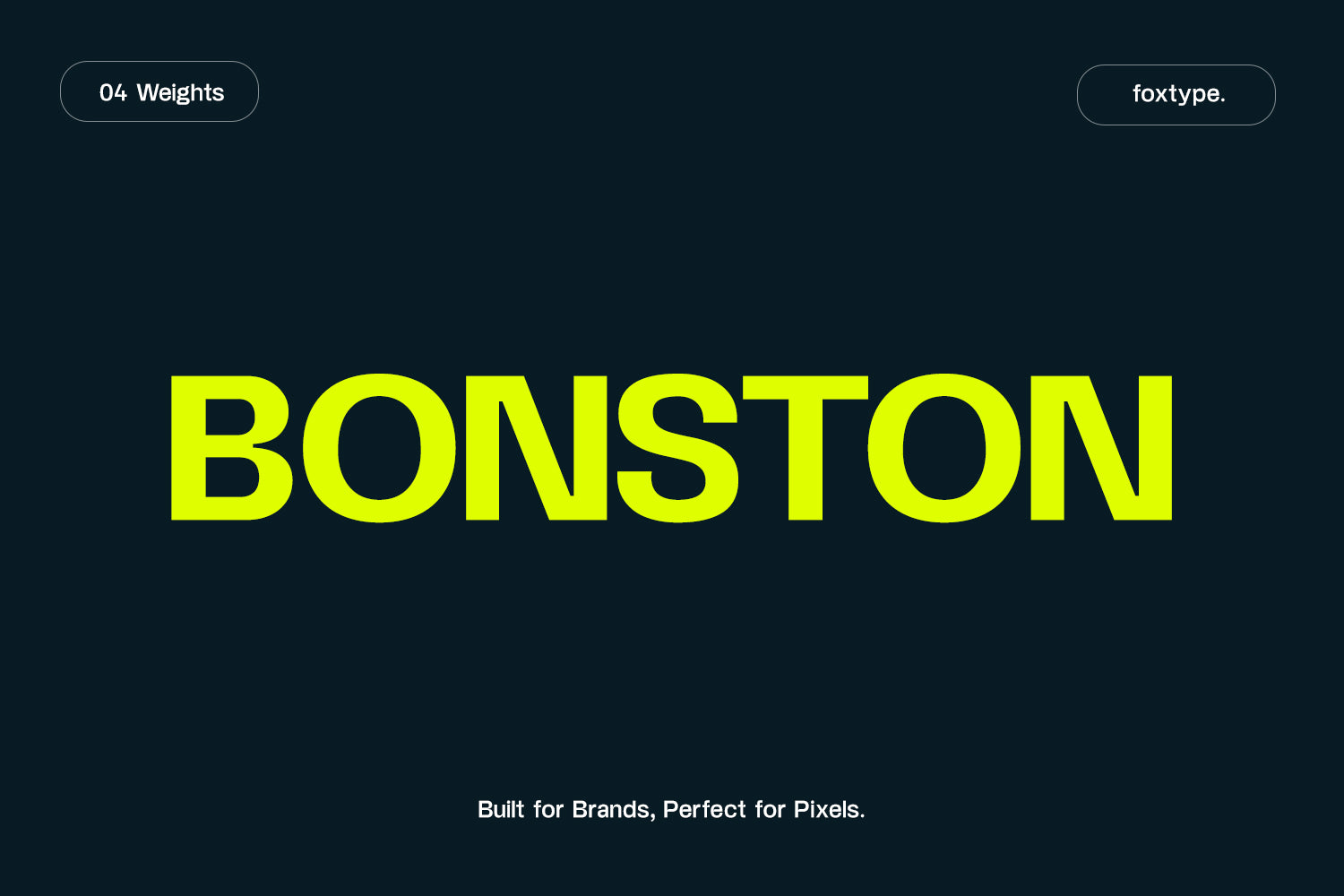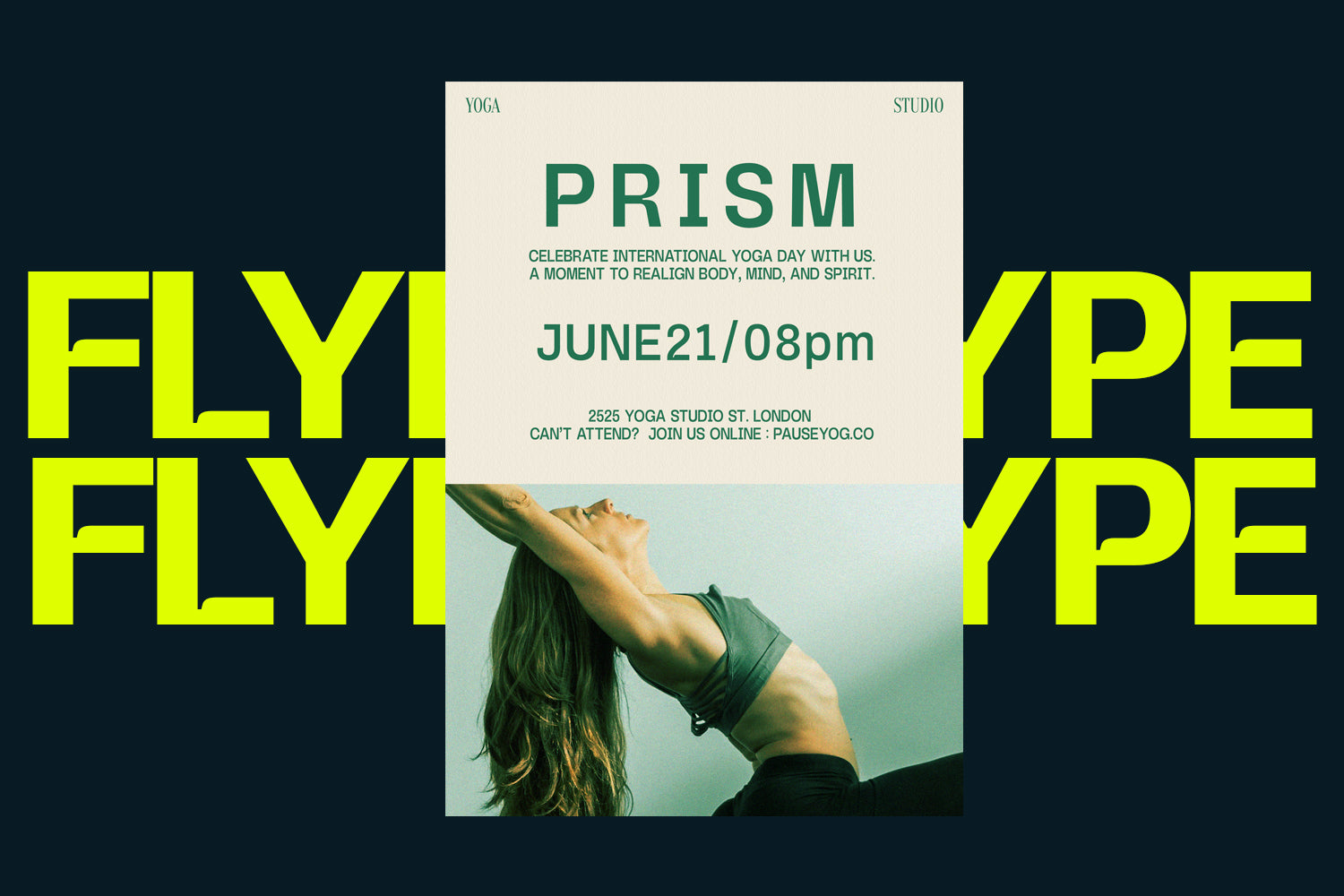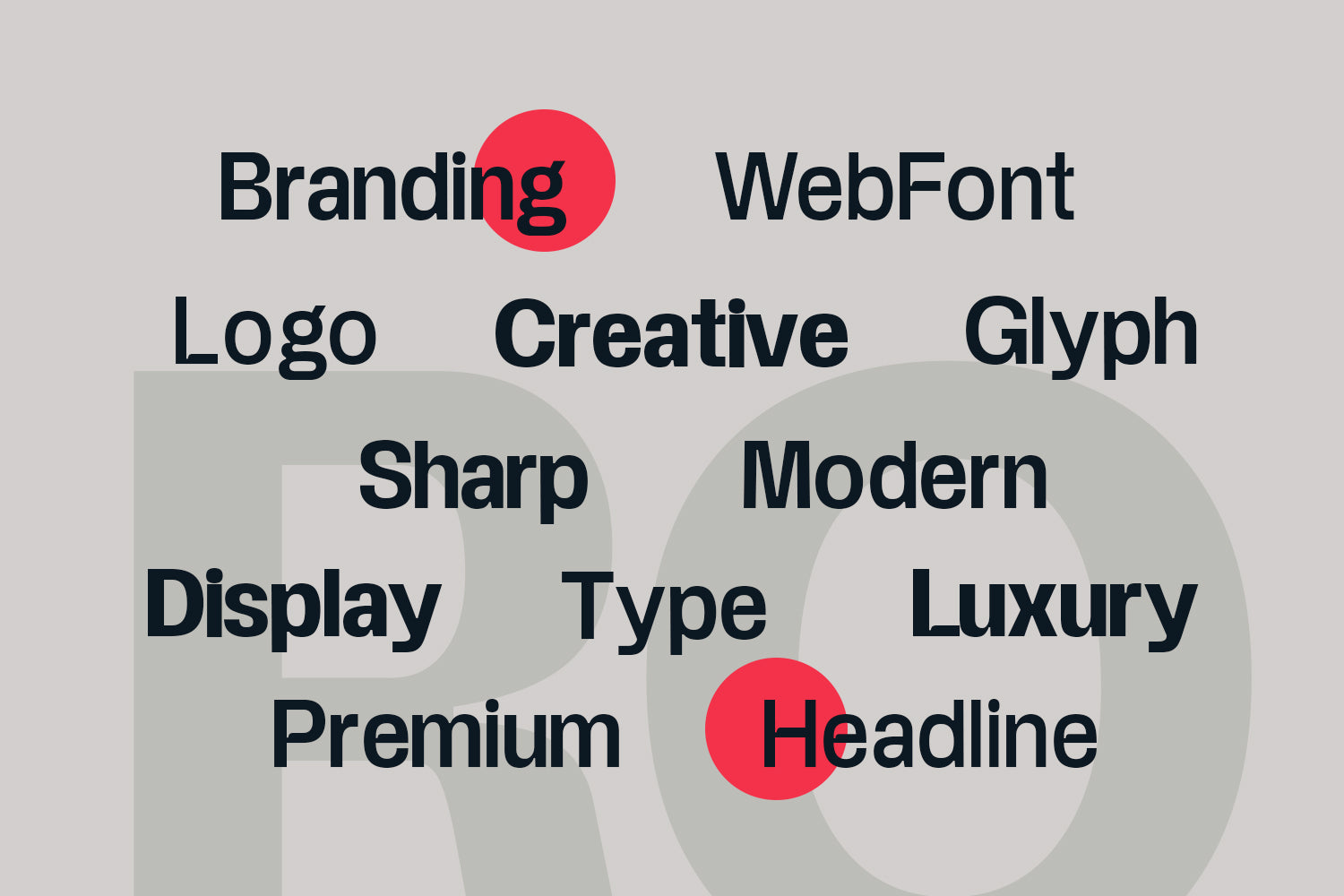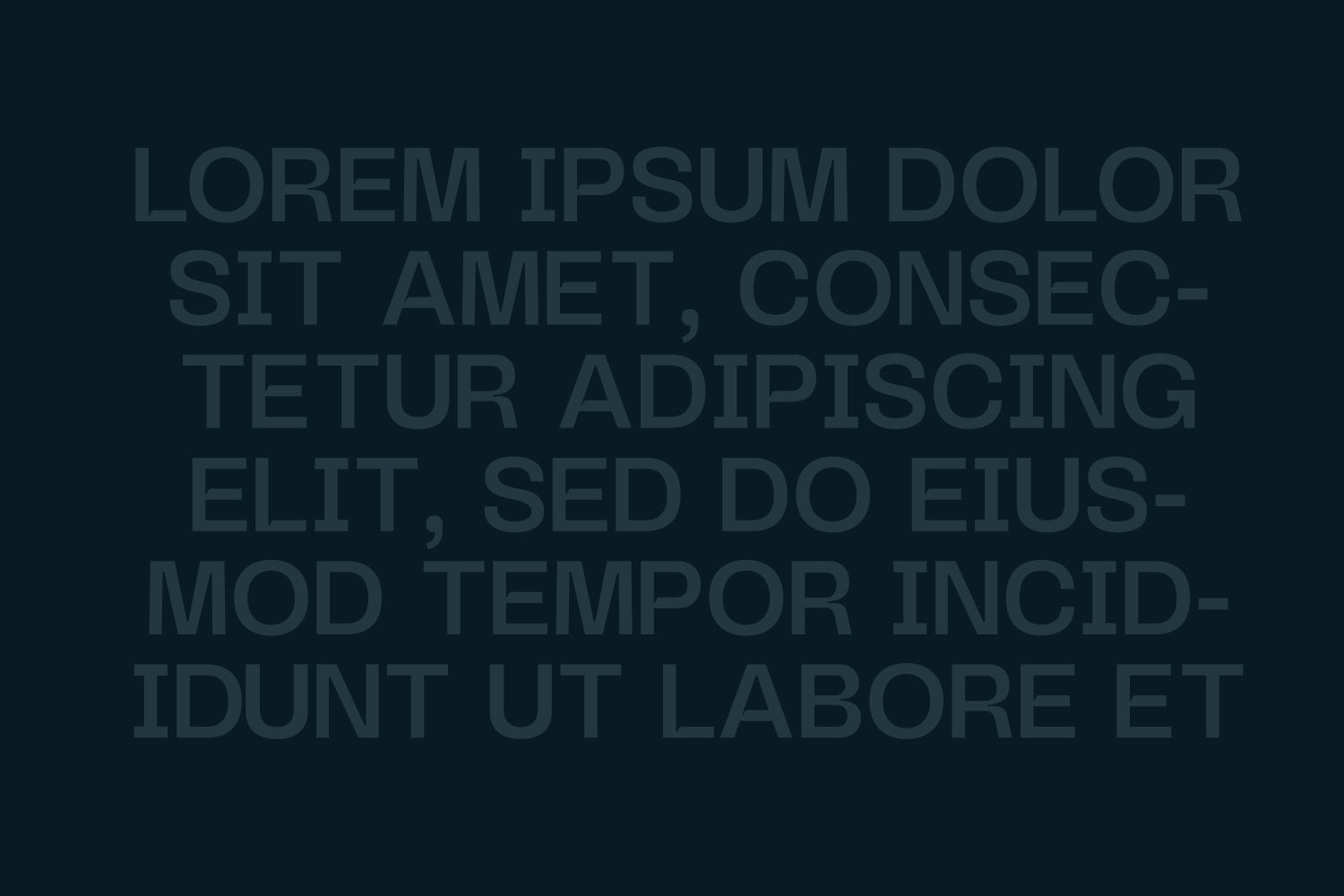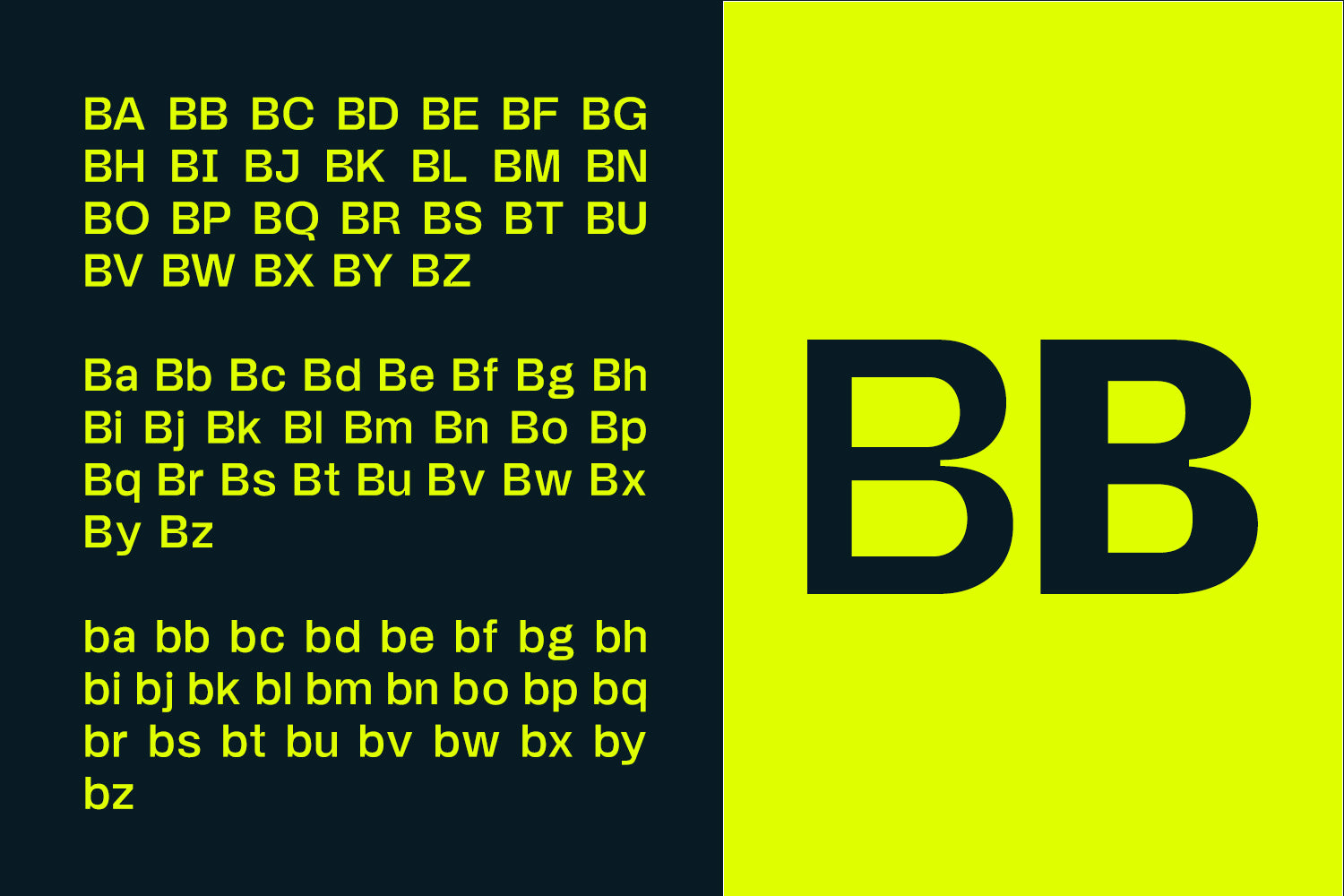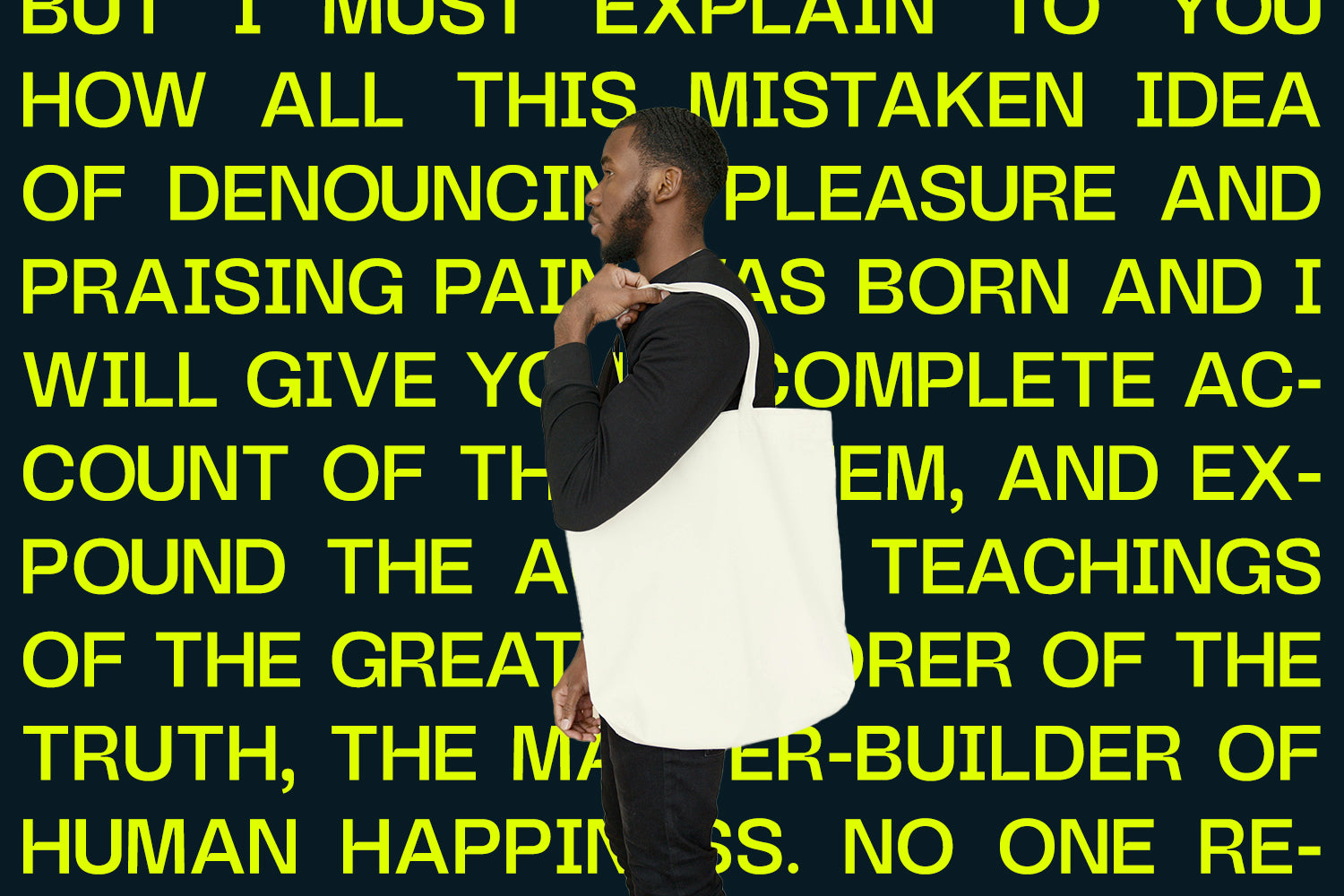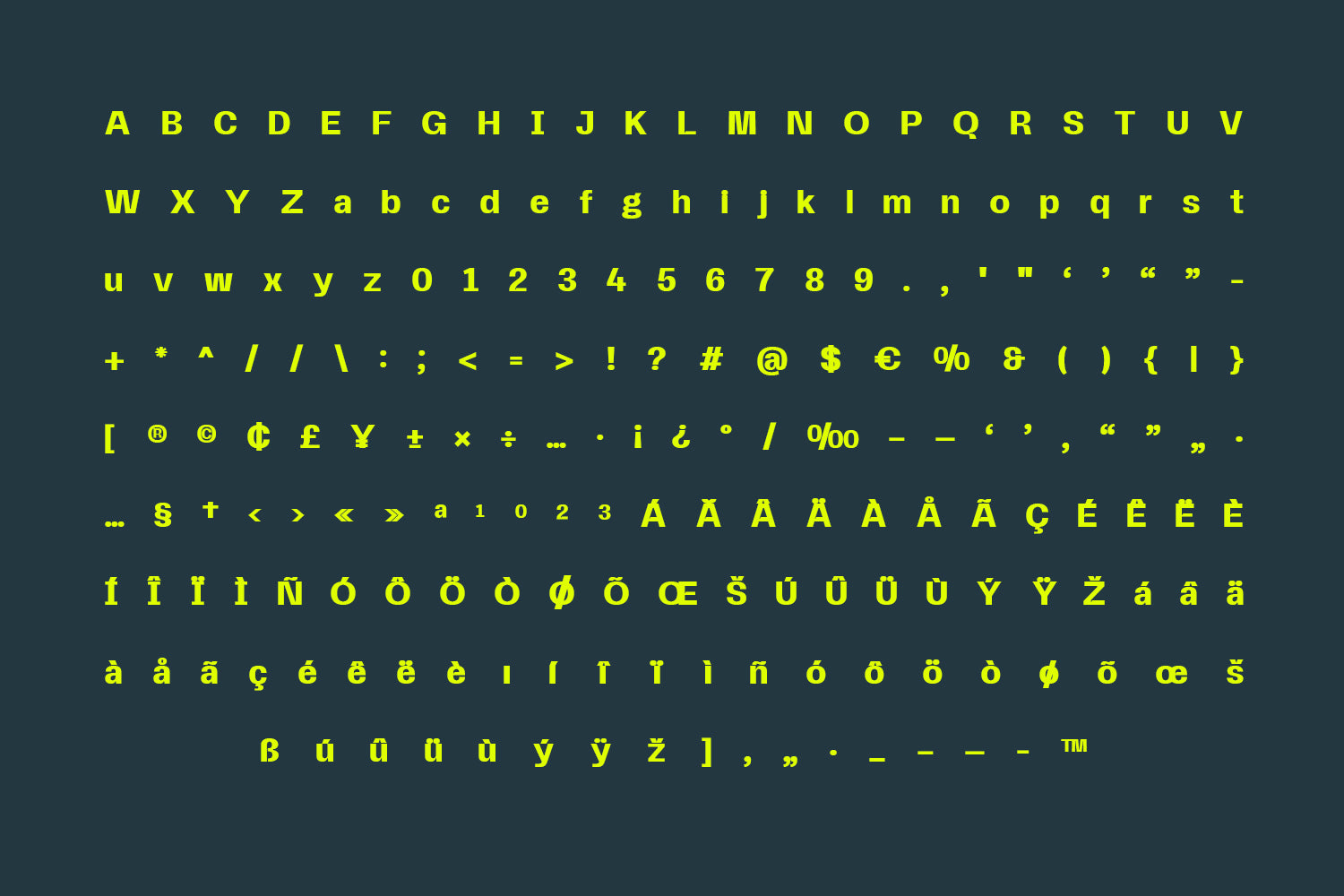
Bonston Display
Bonston Display – Bold. Versatile. Made for Impact.
Bonston Display is a modern and powerful typeface designed for maximum visual impact. Perfect for web projects, branding, posters, flyers, headlines, magazine covers, and bold graphic design, Bonston brings clarity and character to every layout. With its clean lines and strong presence, this font family is ideal for creative professionals, designers, and marketers seeking a high-impact visual solution.
This font package includes 4 essential weights — Regular, Medium, SemiBold, and Bold — offering you the flexibility to adapt to any project need. Whether you’re building a standout website UI, crafting a compelling brand identity, or designing eye-catching print materials, Bonston Display delivers unmatched readability and style.
• 4 Weights: Regular, Medium, SemiBold, Bold
Make your message loud and clear with Bonston Display – a typeface that’s bold enough to lead, and refined enough to stay timeless.